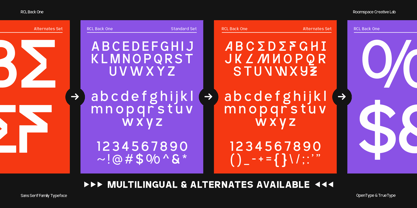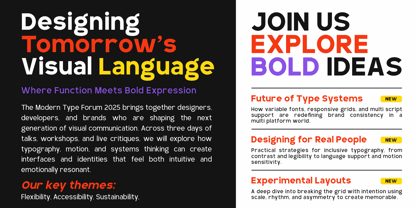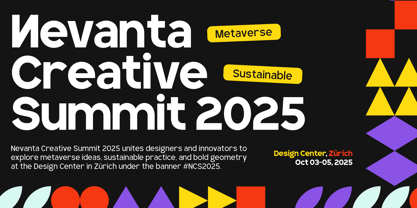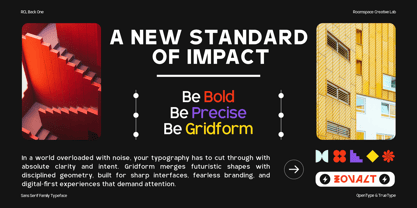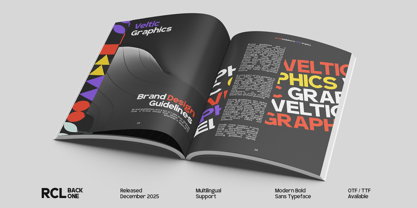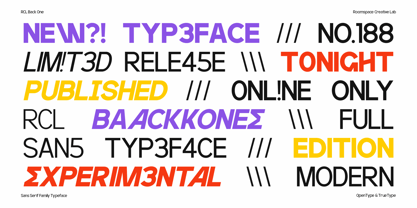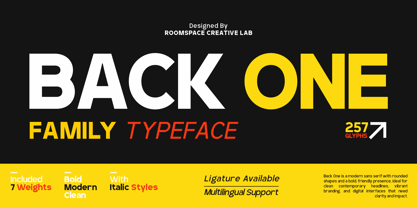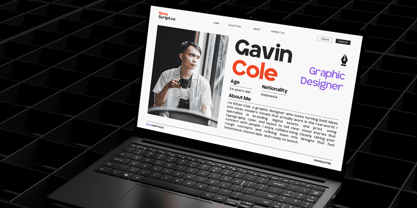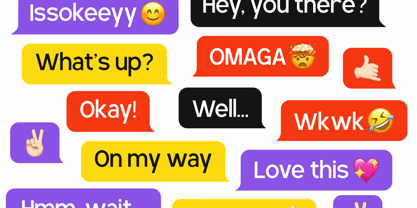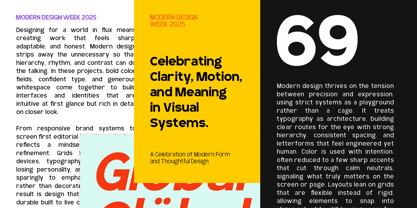
RCL Back One
A bold contemporary sans-serif made to power modern branding and digital design. Back One is a bold modern sans-serif font family created to bring confidence and clarity to your designs. Its wide proportions and clean construction make it perfect for brands that want to stand out while staying professional and approachable. Back One works beautifully across branding systems, websites, mobile apps, editorial layouts, and marketing visuals. Whether you’re building a startup identity or crafting bold headlines, Back One delivers modern strength with effortless readability. Font Features : 7 Weights + Italics Modern sans-serif with bold character Uppercase & lowercase Multilingual support PUA encoded Excellent readability for screen & print Perfect For : Brand identity, web design, UI/UX, packaging, social media, posters, editorials, startups, and corporate branding.
Designer: Bakhrudin Ja'far
Foundry: Jafar07
A little from my personal design & background: My name is Bakhrudin Ja'far, I live in Malang, Indonesia. I am currently completing my degree in visual communication design and I have worked as a lettering artist and logo designer for many years. I finally started my studio called roocspace creative lab (jafar07) Studio a few months ago and with my team made my letters into typography.